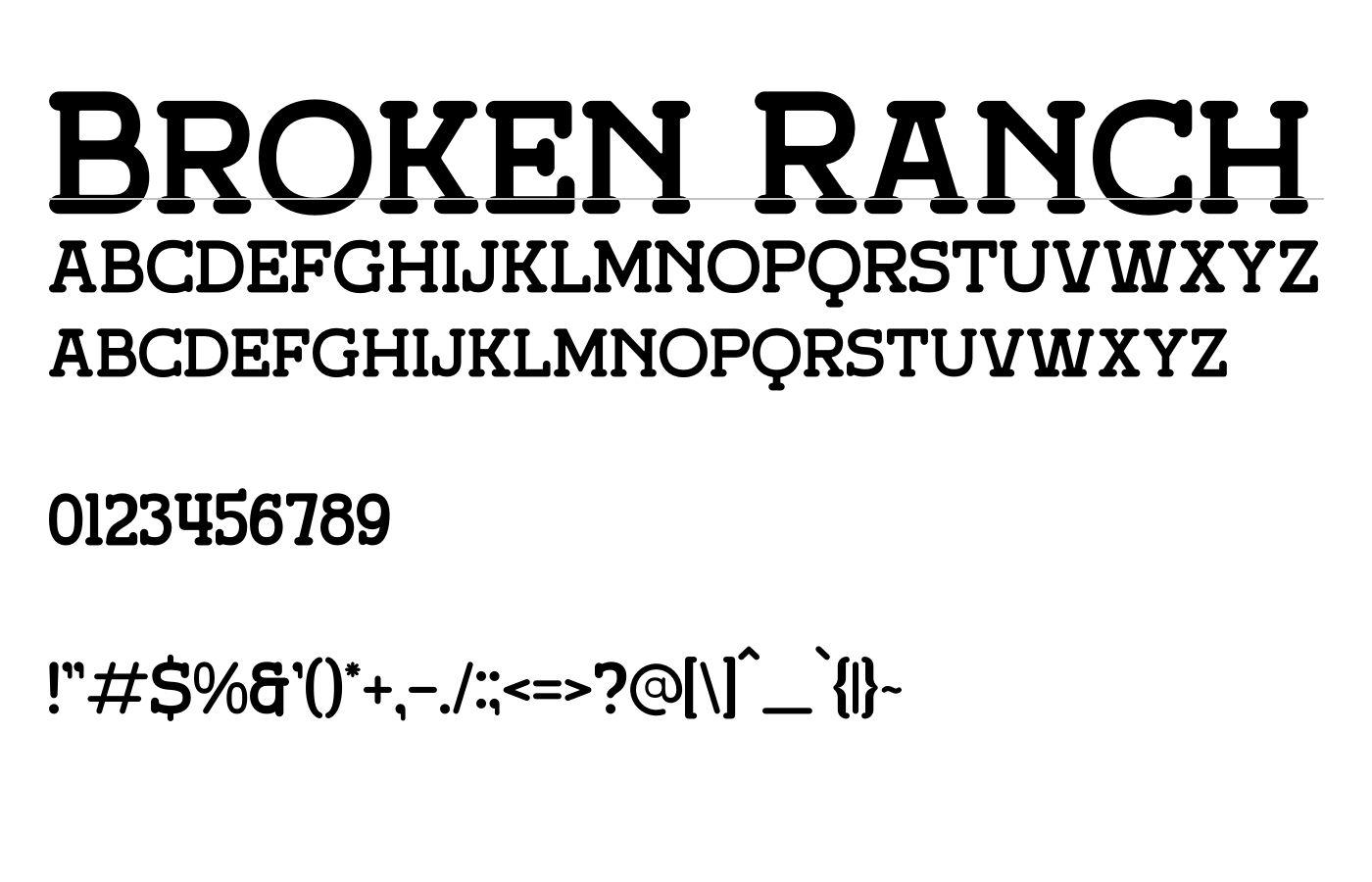
Broken Ranch is a bold slab serif font with a vintage Western vibe, featuring thick, unbracketed serifs and strong, rounded letterforms. Its sturdy and compact structure makes it an excellent choice for logos, signage, and headlines where a rugged, classic feel is desired. This font captures a rustic, adventurous spirit perfect for branding in outdoor, western, or craft-related projects.
Broken Ranch Font
About Broken Ranch Font